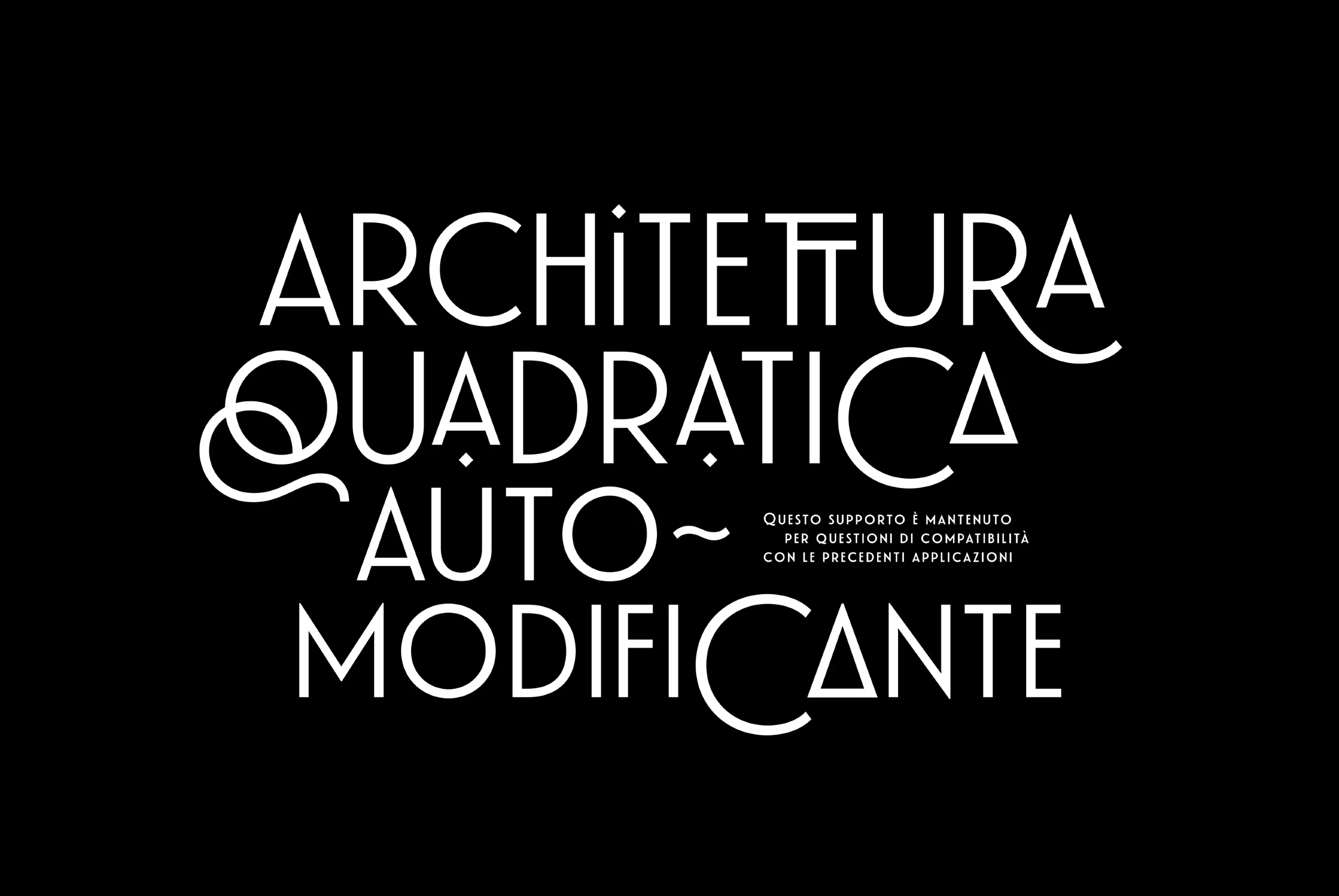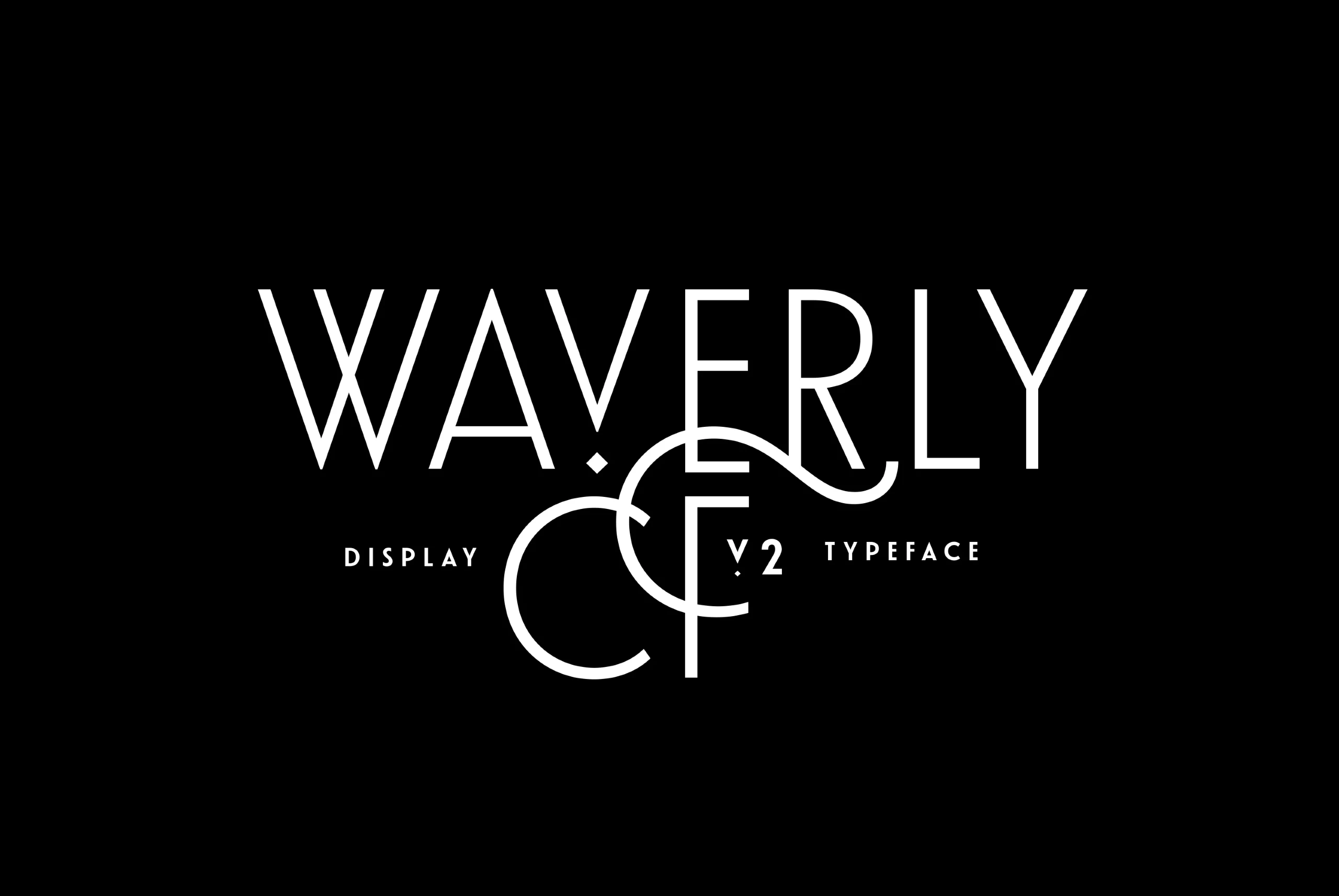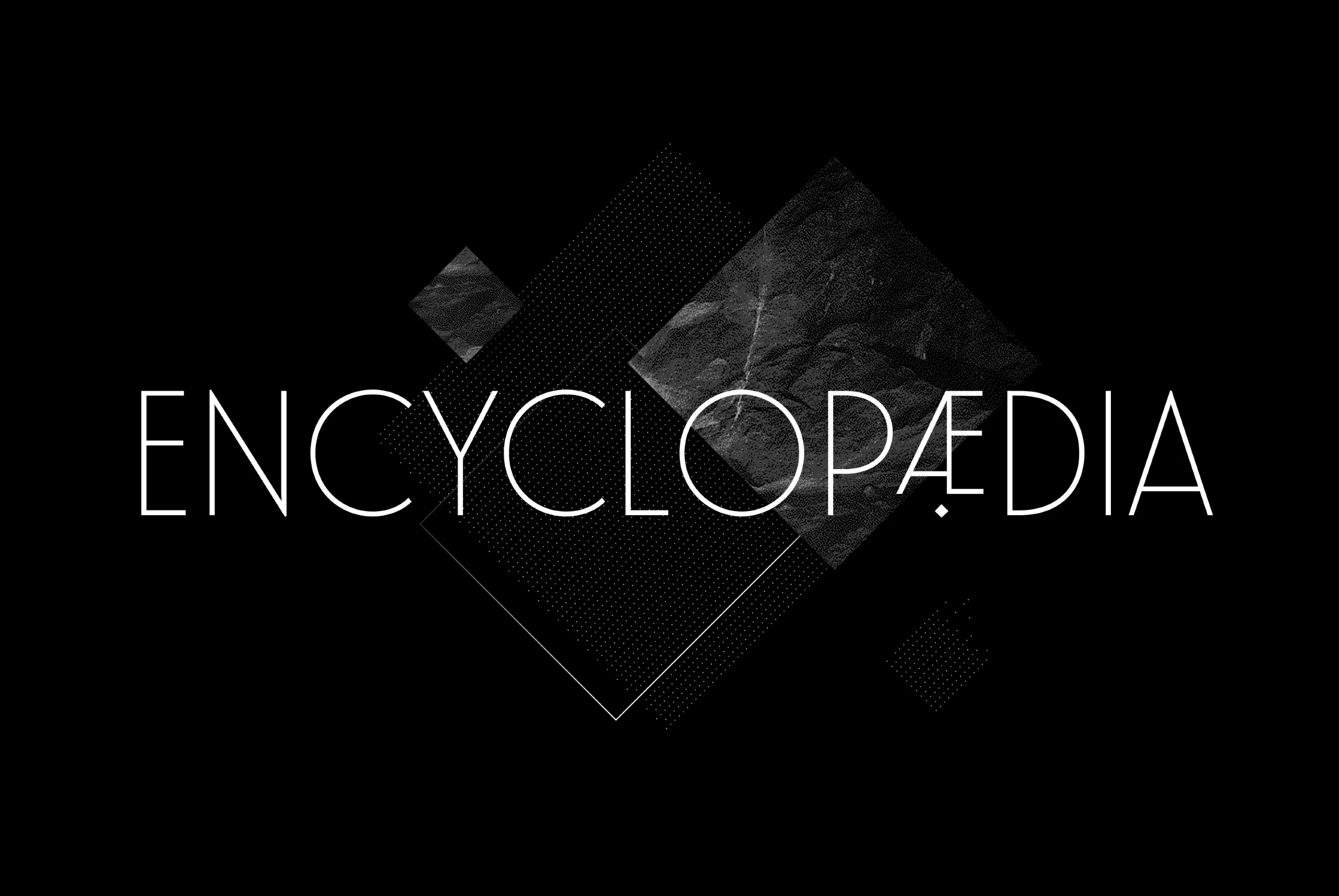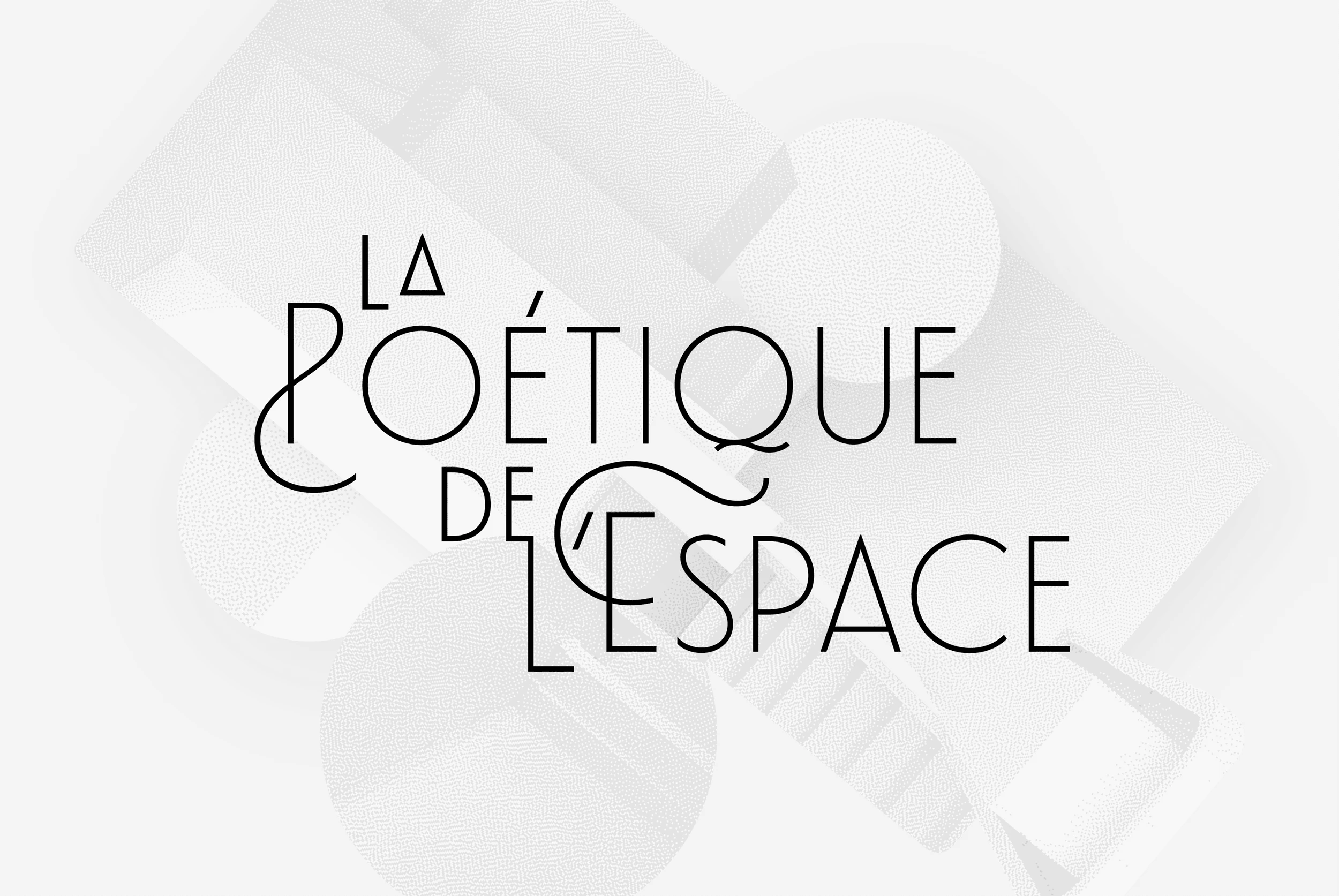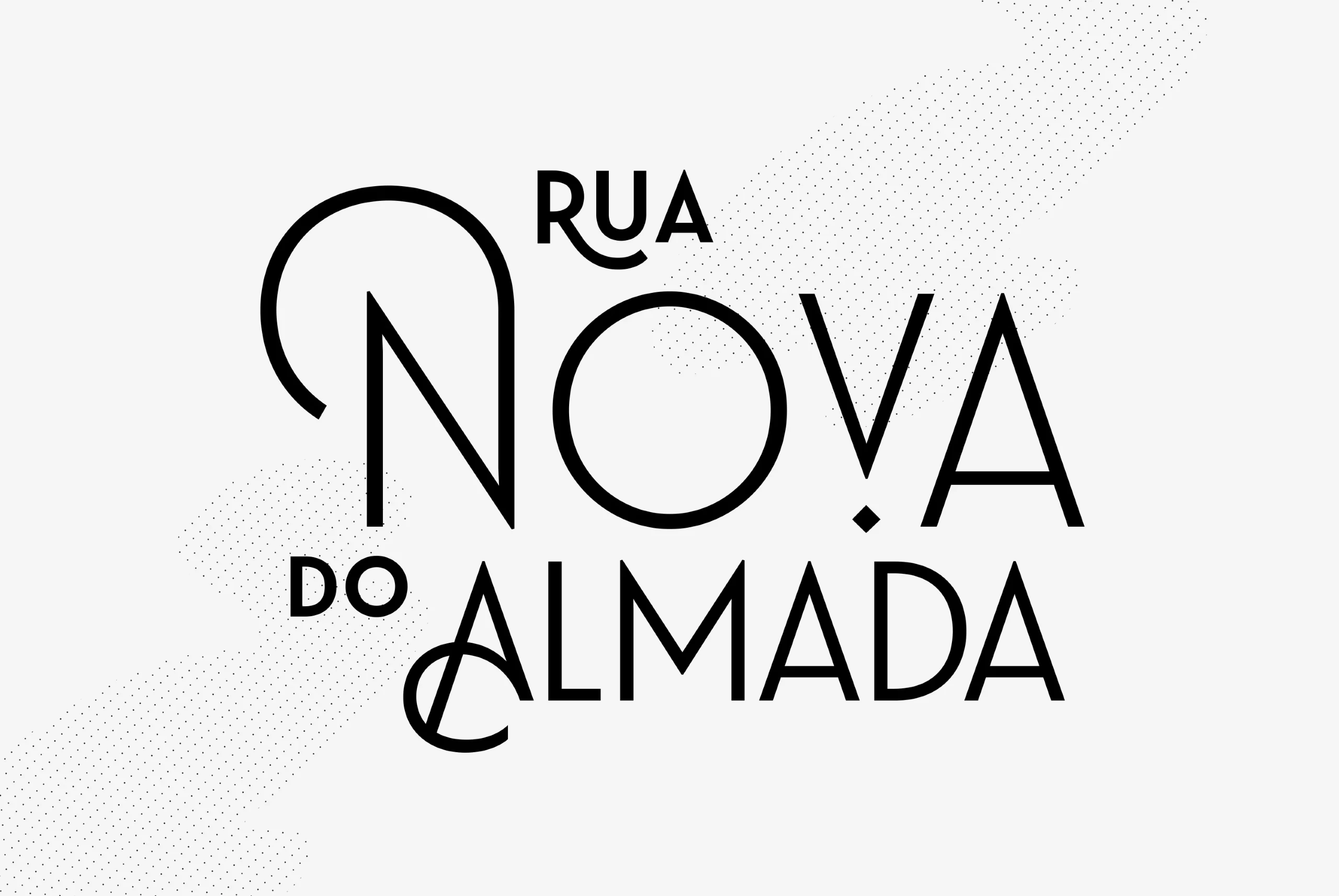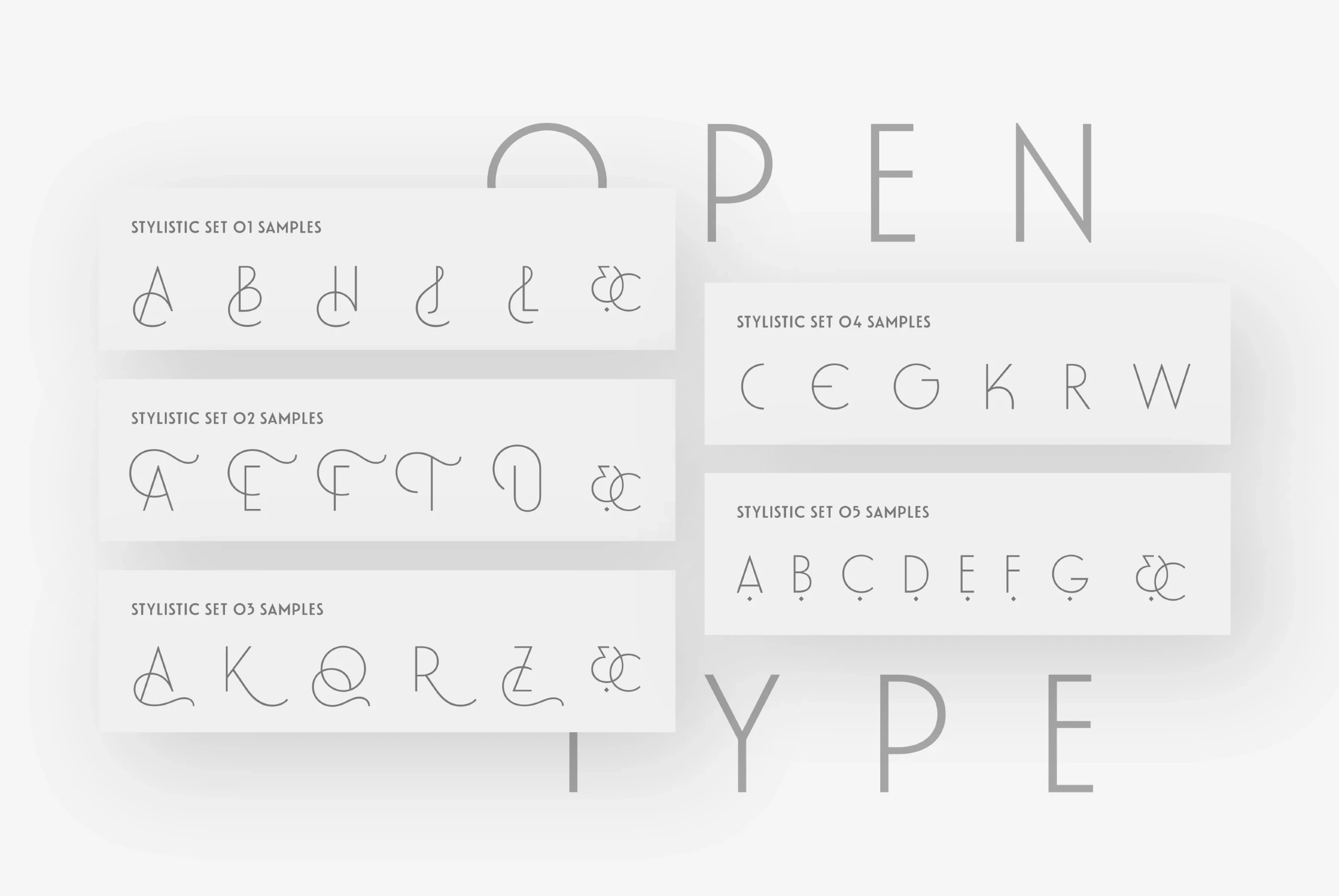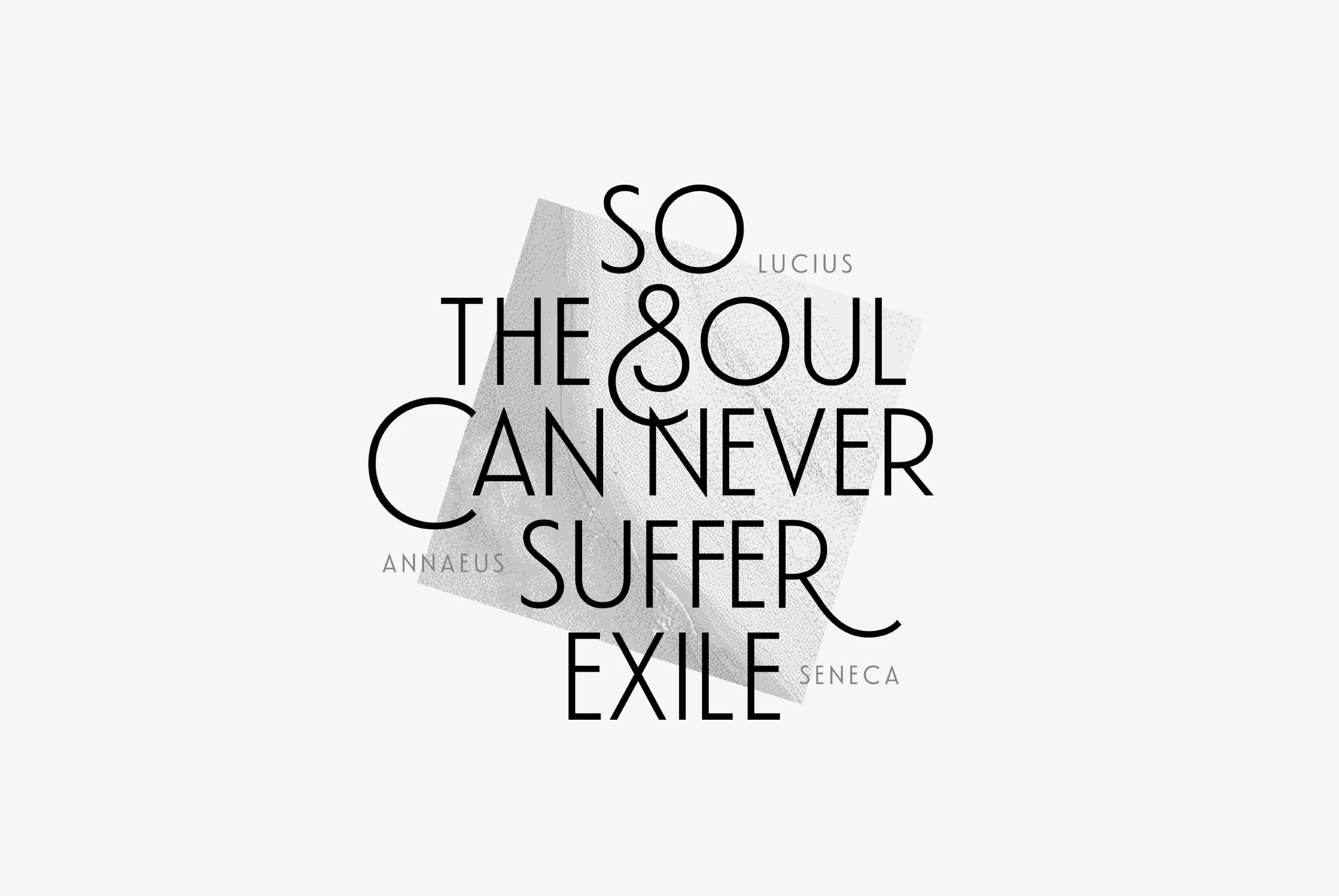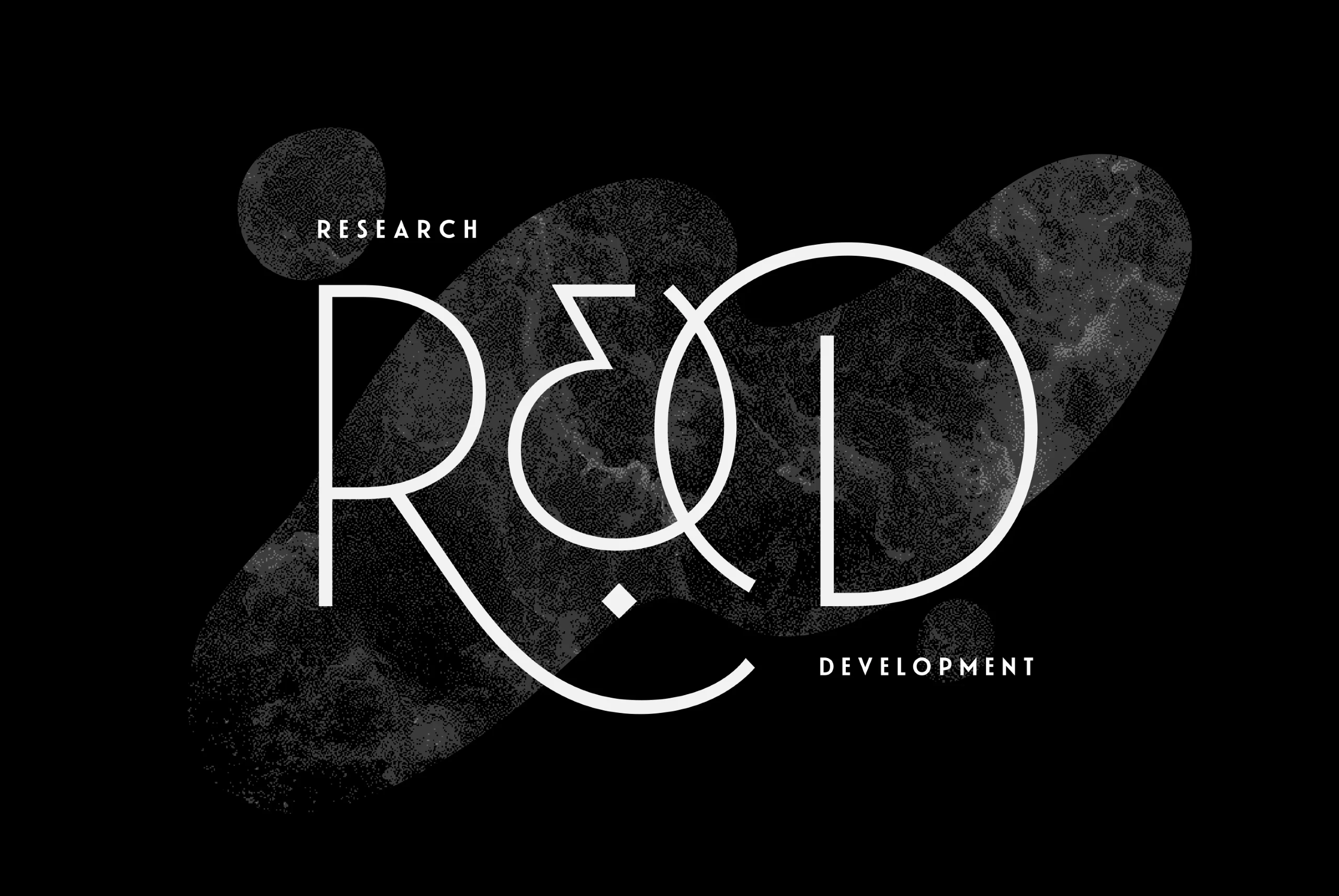
Waverly
Waverly CF combines the tone and flow of art deco with updated, clean letterforms and a modernized construction. Variation in letter width creates a pleasant rhythm perfect for artwork and logos. Waverly CF offers wide language support across Latin and Cyrillic glyphs, and includes a host of swashes and alternate letterforms.
seven Weights in Latin & Vietnamese • Cyrillic • Stylistic Sets Script